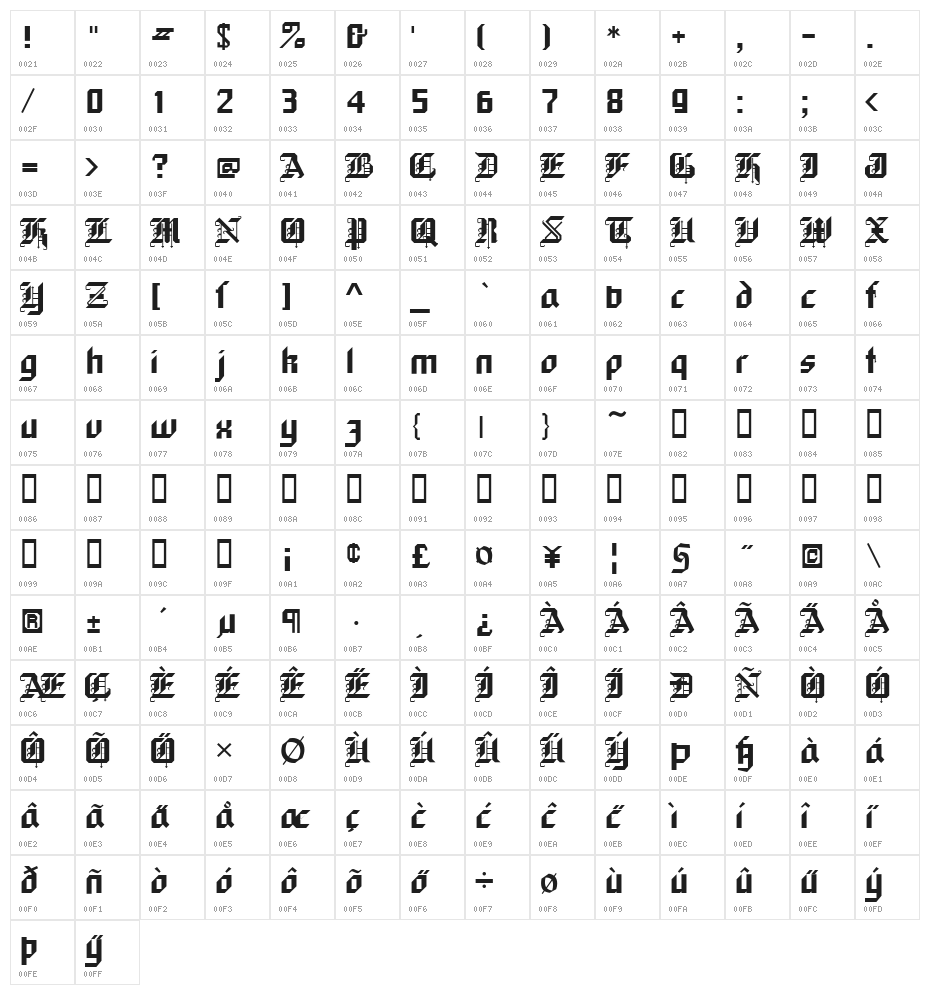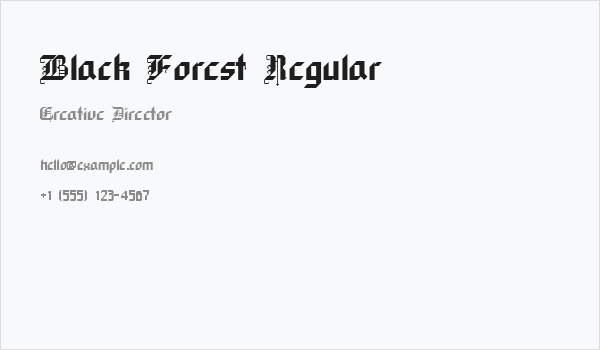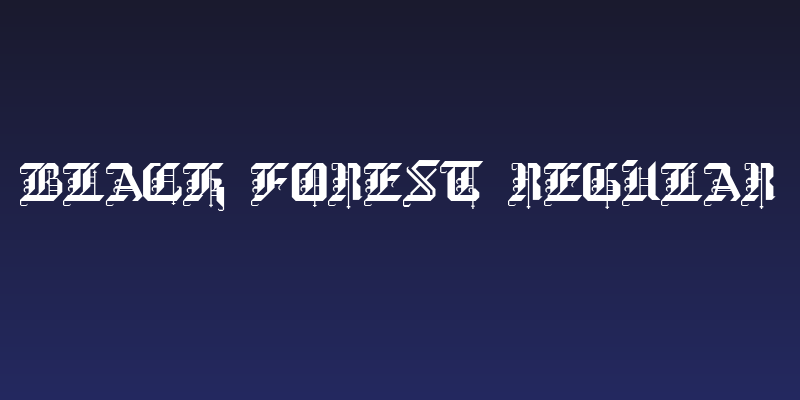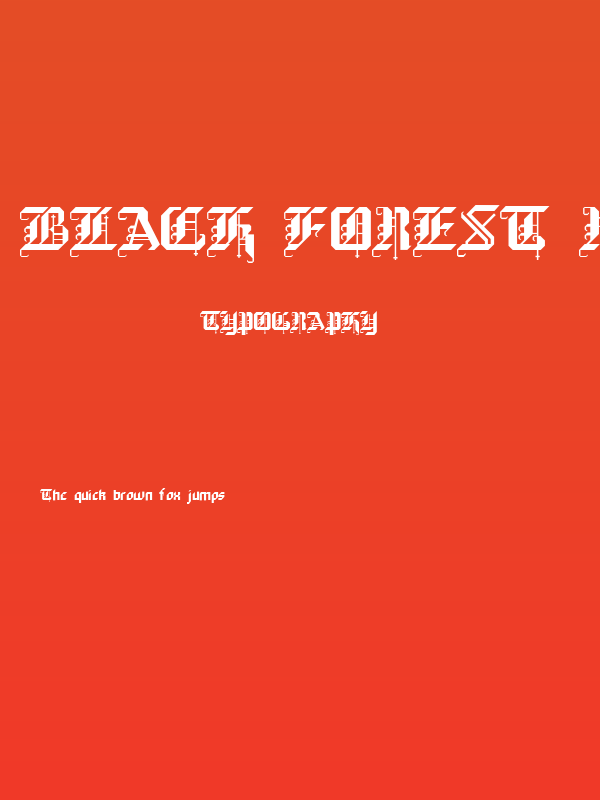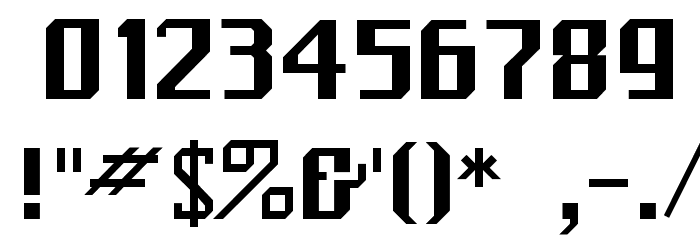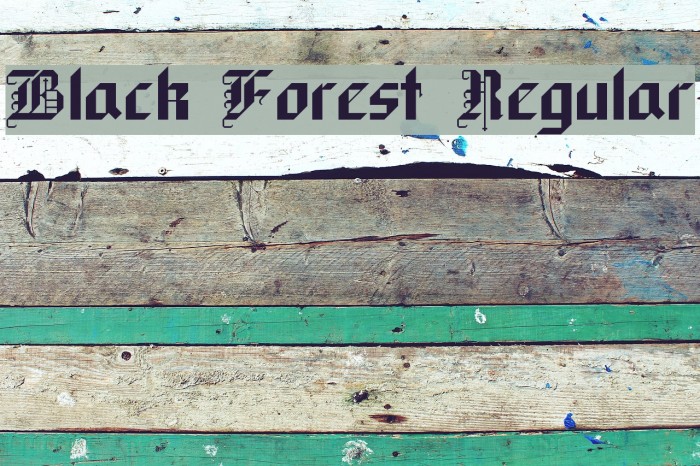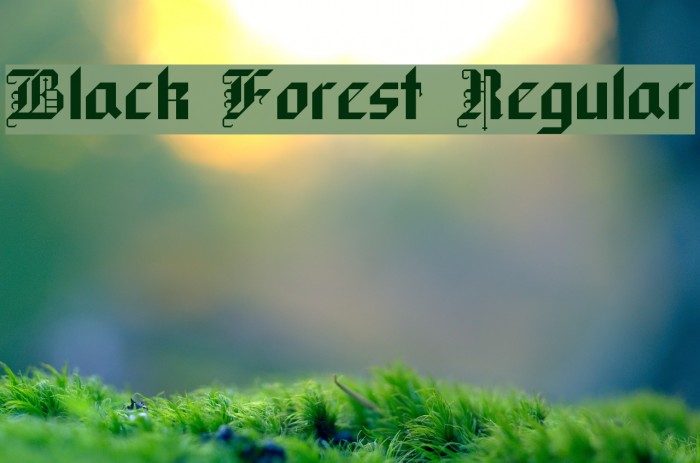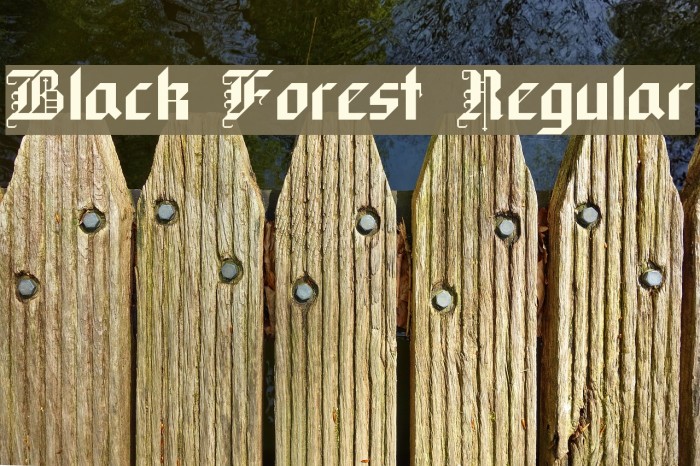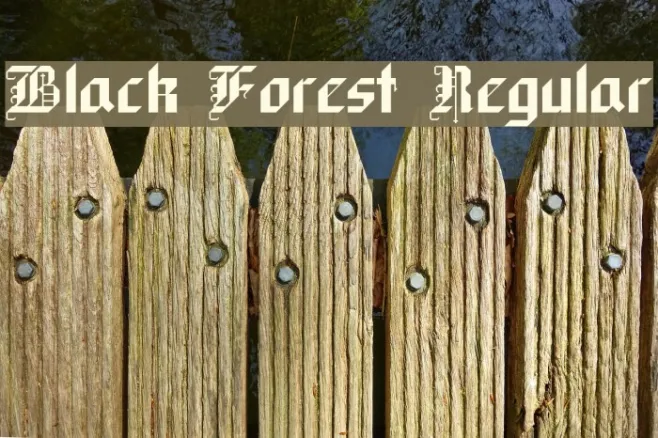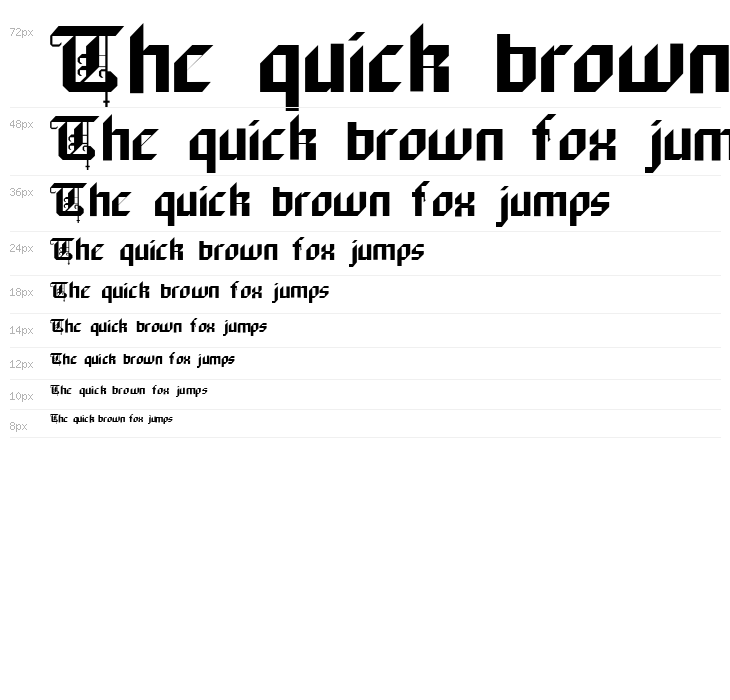
Black Forest Regular Font
Black Forest Regular Description
This font features a bold and striking design with a strong Gothic influence. The uppercase letters are intricately detailed with sharp angles and decorative elements, reminiscent of traditional blackletter styles. The lowercase letters maintain a consistent weight and angularity, providing a modern twist to the classic form. Numbers and special characters follow the same stylistic cues, ensuring a cohesive appearance across all glyphs. The font's boldness and unique character make it suitable for impactful designs that require a touch of historical elegance.
| Proposed Projects | Ideal for branding, posters, album covers, and any project needing a dramatic, historical aesthetic. |